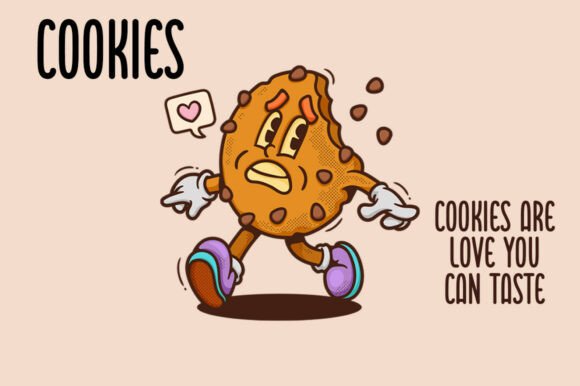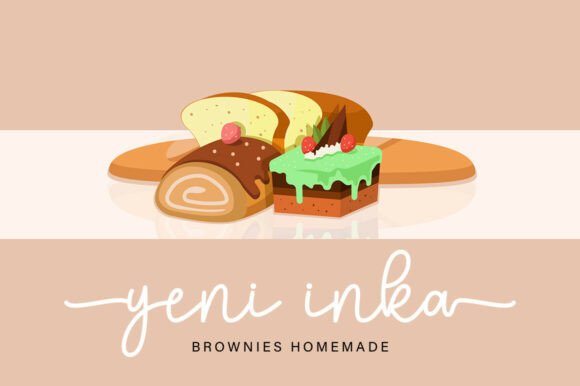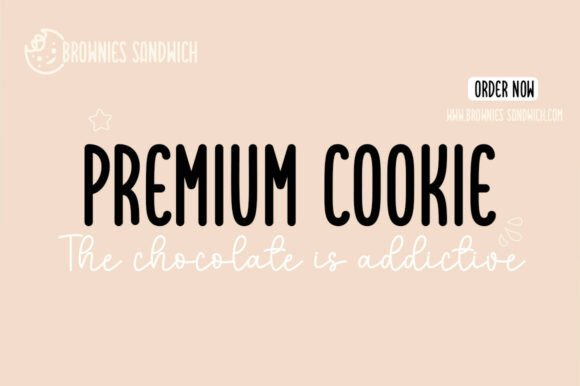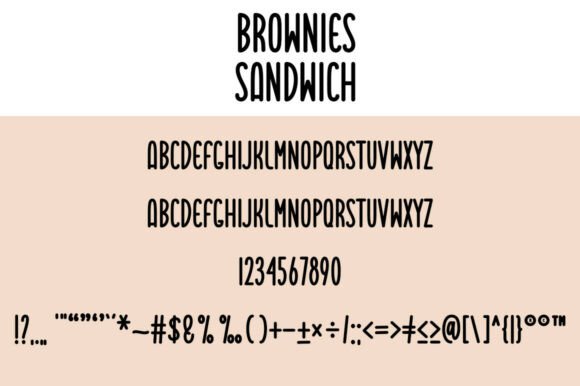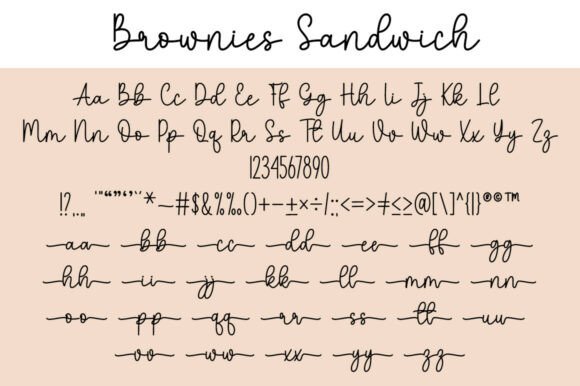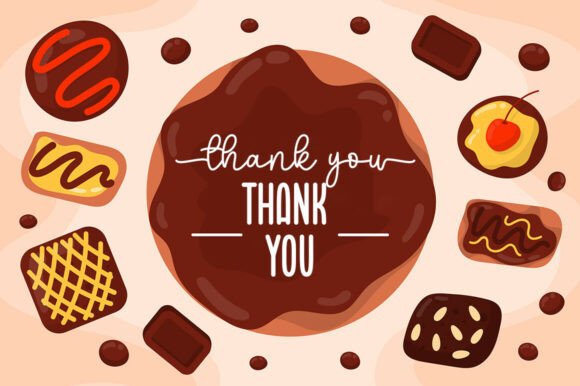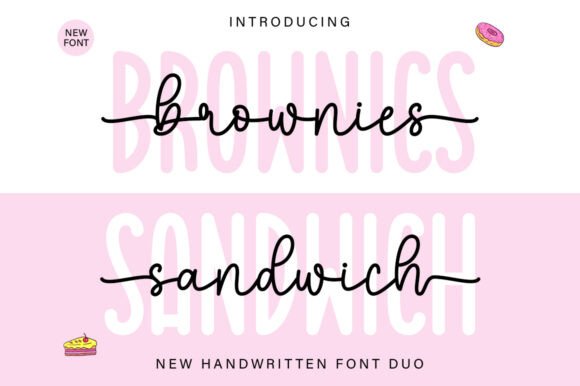
Brownies Sandwich Duo Font: Elevate Your Designs with a Touch of Romance
Are you a designer or crafter looking for a font that can add a romantic touch to your creations? Look no further than the Brownies Sandwich Duo Font. This stylish and delicate duo font, consisting of a sans serif and script font, is perfect for a wide range of applications, from greeting cards to headlines. In this article, we’ll explore the features and benefits of the Brownies Sandwich Duo Font and how it can take your designs to the next level.
What is Brownies Sandwich Duo Font?
Brownies Sandwich Duo Font is a carefully crafted duo font that combines a sans serif font with a beautiful script font. This unique pairing allows designers to create stunning text combinations that are sure to capture attention. The font is designed to be versatile and can be used for various design projects, including:
- Greeting cards
- Headlines
- Logos
- Branding materials
- Digital and print media
Key Features of Brownies Sandwich Duo Font
The Brownies Sandwich Duo Font comes with several key features that make it a valuable addition to any designer’s toolkit:
- PUA Encoding: The font is PUA (Private Use Area) encoded, which means you can easily access all the glyphs and ligatures. This feature makes it simple to use the font and get creative with your designs.
- Duo Font: The font comes with two complementary fonts – a sans serif font and a script font. This allows you to mix and match the fonts to create unique and visually appealing text combinations.
- Romantic Touch: The Brownies Sandwich Duo Font is designed to add a romantic touch to your designs. The script font features elegant and flowing lines, while the sans serif font provides a clean and modern contrast.
Benefits of Using Brownies Sandwich Duo Font
- Unique and Creative Designs: The duo font feature allows you to create unique and creative text combinations that will set your designs apart.
- Versatility: The font is suitable for a wide range of applications, making it a valuable addition to your font library.
- Romantic and Elegant: The font’s romantic and elegant feel makes it perfect for designs that require a touch of sophistication and whimsy.
The Brownies Sandwich Duo Font is a versatile and elegant font duo that can elevate your designs with a romantic touch. With its PUA encoding, duo font feature, and romantic feel, this font is perfect for designers and crafters looking to create unique and creative designs. Whether you’re working on a greeting card, headline, or branding material, the Brownies Sandwich Duo Font is a valuable addition to your toolkit.